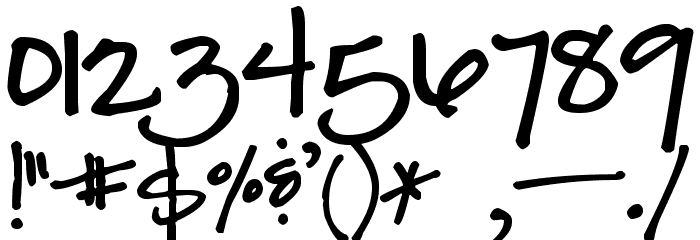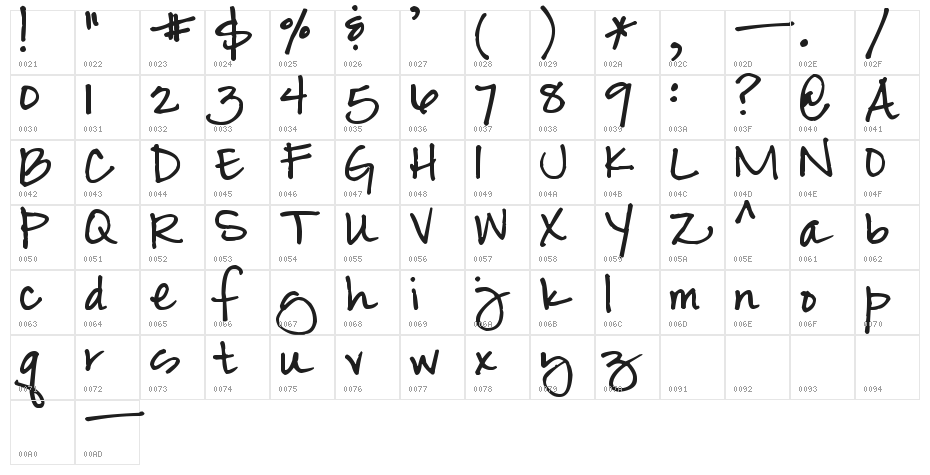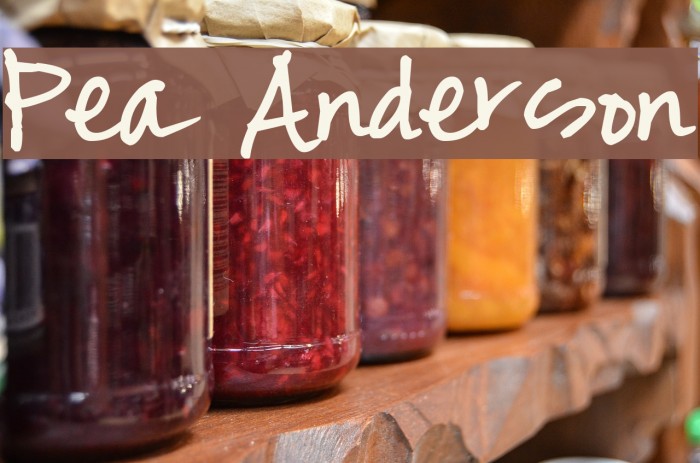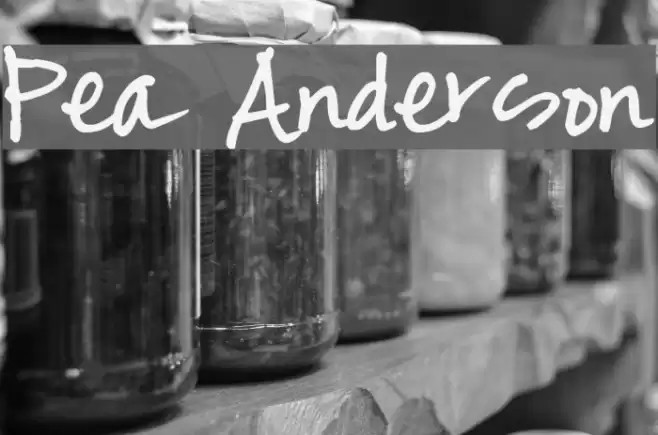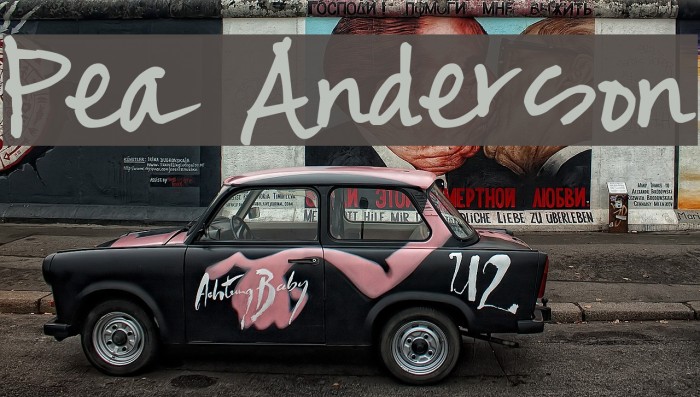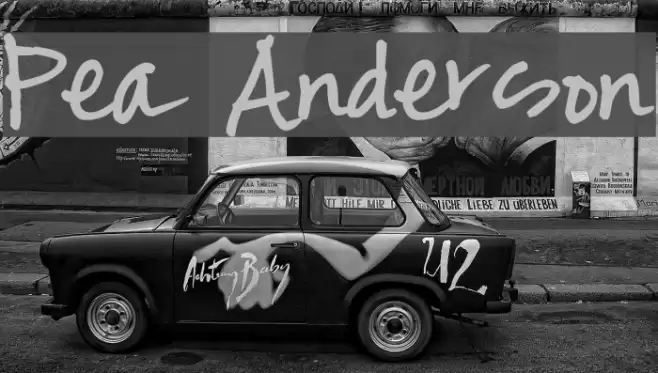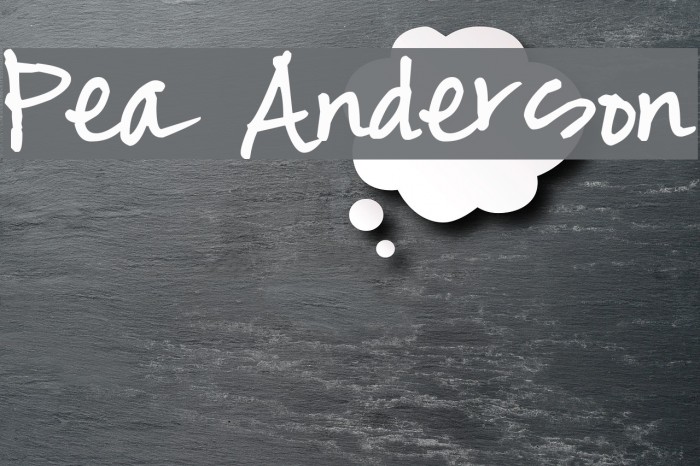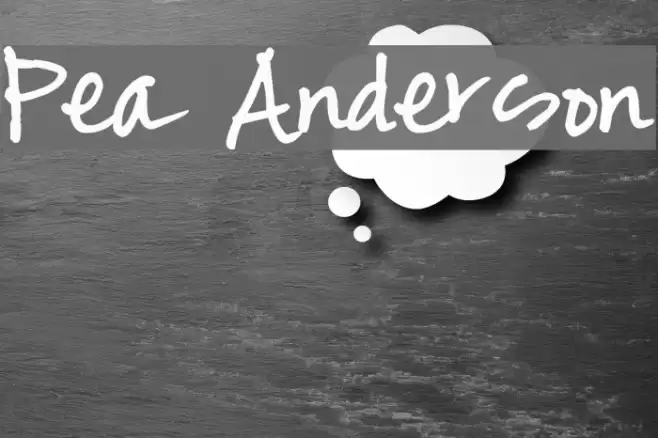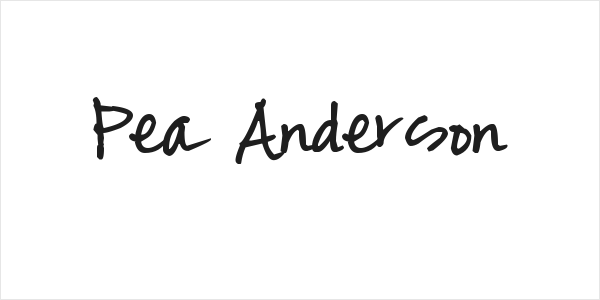
Pea Anderson Font
Pea Anderson Description
This font exudes a playful and casual handwritten style, characterized by its irregular strokes and informal appearance. The letters are slightly slanted, giving a dynamic and lively feel. The uppercase and lowercase letters are distinct, with the lowercase 'g' and 'j' featuring loops that add to the font's whimsical nature. The numbers are bold and maintain the same playful style, making them easily readable. Special characters are included, maintaining the same handwritten aesthetic. This font is perfect for projects that require a personal touch or a fun, informal vibe.
| Use Case | Headlines, Informal text, Personal projects |
| Proposed Projects | Ideal for greeting cards, personal blogs, children's books, and informal branding projects. |